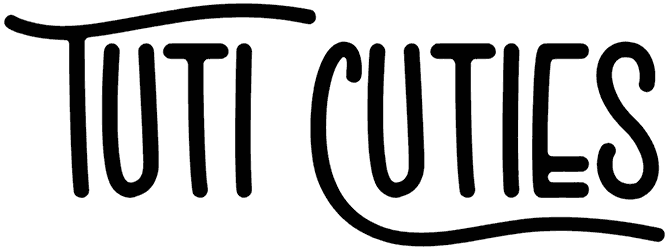
Tuti Cuties Font
Your context will shine with a minimal and soft outward, and Tuti Cuties can make it happen. This handwritten font has a slim pen lettering form that possesses no lowercase letters but consists of two sets of capital letters. You put this sweet font on your happy designs, from covers to flyers, and have delight.